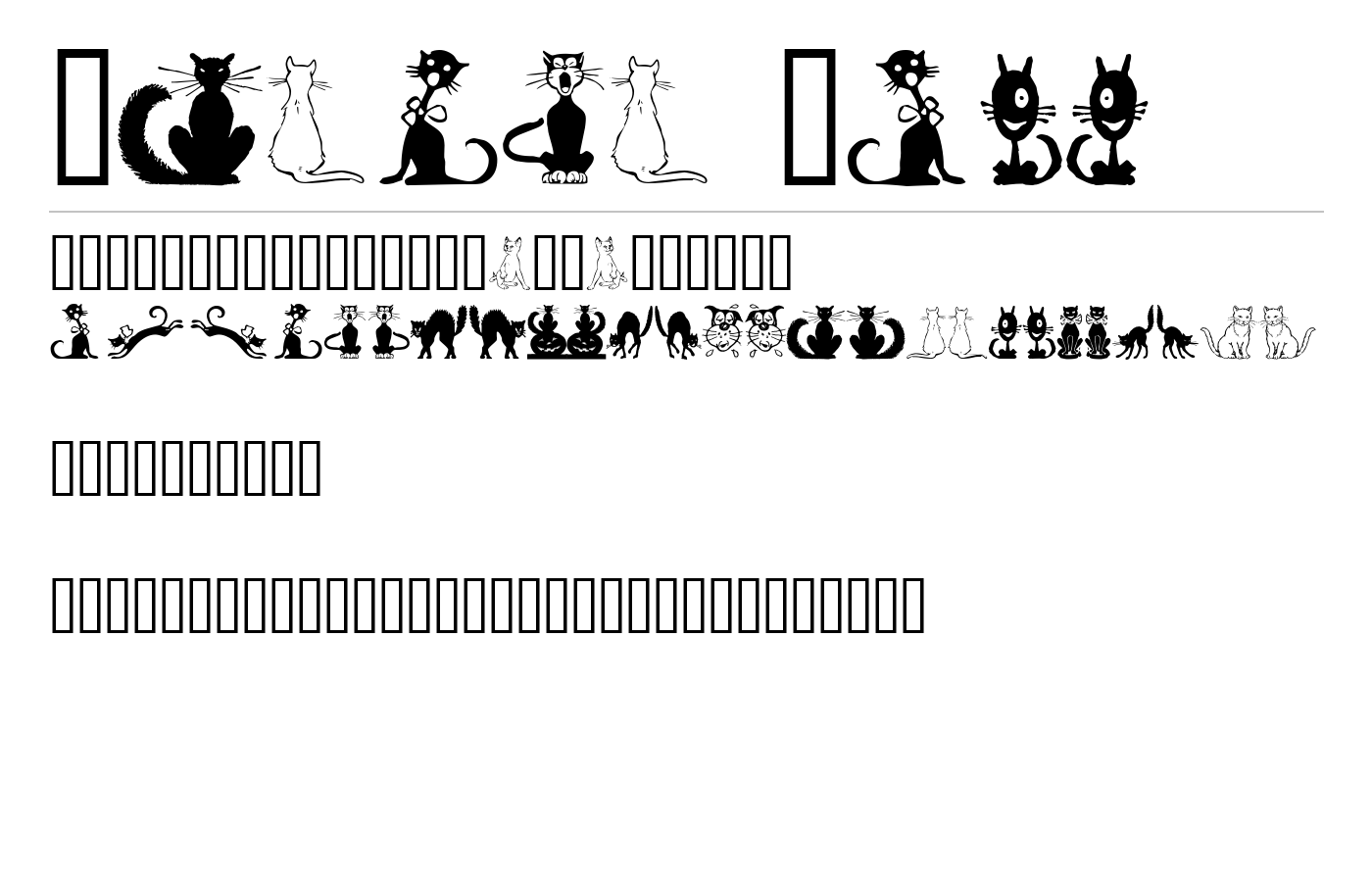
Border Cats Font is a playful and decorative dingbat typeface featuring charming cat illustrations in various poses and styles. Ideal for creative projects, this whimsical font adds personality and fun to invitations, children’s books, and craft designs. Its unique cat motifs make it perfect for pet-related branding or any playful, lighthearted visual communication.
Border Cats Font